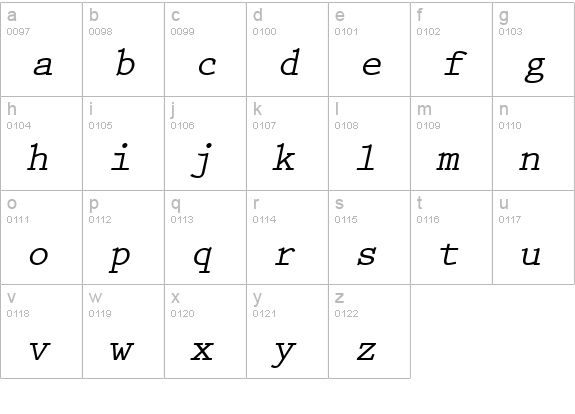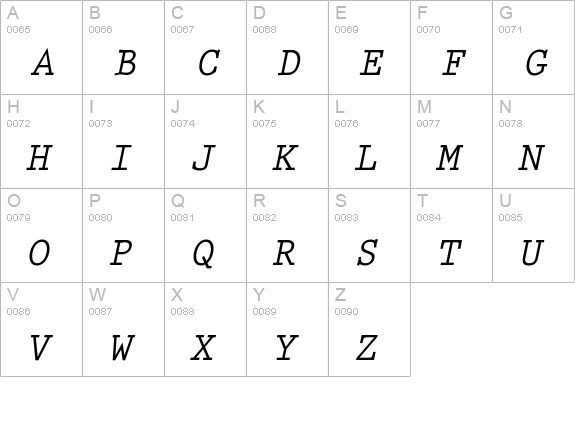
Keyboard Elite SSi Bold Italic Font Details
Keyboard Elite SSi Bold Italic is a strong, high-contrast, italic variant in the Keyboard typeface family \xE2\x80\x94 well suited to headlines, attention-grabbing titles, and strong calls-to-action.
Introducing the Keyboard Elite SSi Bold Italic font, a stunning typeface that effortlessly combines boldness and elegance in one dynamic package. This font is the epitome of style and sophistication, perfect for those seeking a unique and eye-catching design. With its bold and italic variations, the Keyboard Elite SSi font adds a touch of flair to any project, making it stand out from the crowd. Whether you're designing a logo, creating a poster, or crafting a website, this font will effortlessly enhance your work and leave a lasting impression on your audience. One of the best things about the Keyboard Elite SSi Bold Italic font is that it is freely available to download at FontsMarket.com. Yes, you heard it right – this incredible font can be yours at no cost. FontsMarket.com, a trusted source for high-quality fonts, offers this font as a free download, allowing you to explore its full potential without breaking the bank. The Keyboard Elite SSi Bold Italic font features impeccable letterforms, with each character meticulously crafted to perfection. Its bold and italic styles harmoniously blend together, creating a visually striking and well-balanced typeface that demands attention. Whether used for headlines, subheadings, or body text, the Keyboard Elite SSi Bold Italic font exudes confidence and professionalism. Its sleek curves and sharp edges make it a versatile choice for a wide range of projects, from corporate presentations to creative endeavors. So, if you're looking to add a touch of elegance and sophistication to your design, look no further than the Keyboard Elite SSi Bold Italic font. Download it freely at FontsMarket.com today and unleash your creativity with this extraordinary typeface.